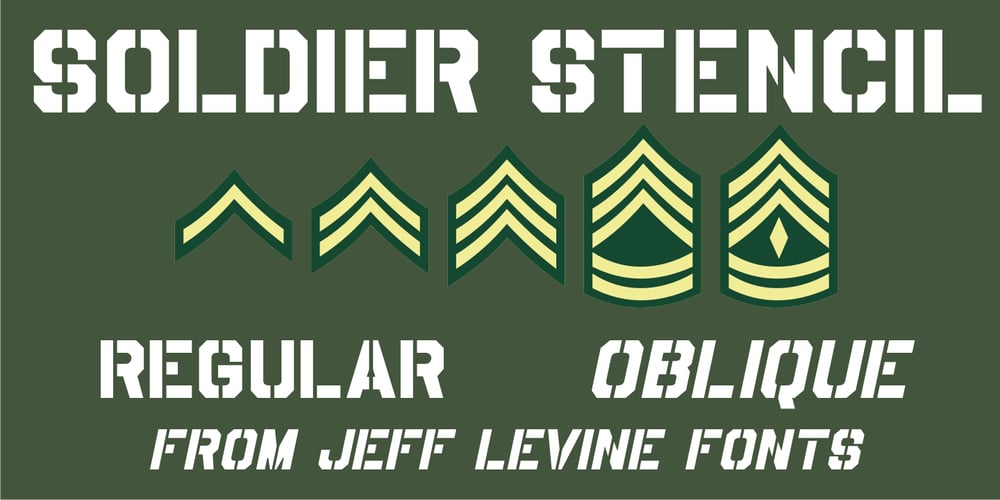
Soldier Stencil JNL
Soldier Stencil JNL font
Soldier Stencil JNL Font Family was designed by Jeff Levine and published by Jeff Levine. Soldier Stencil JNL contains 2 styles and family package options. Soldier Stencil JNL is a re-working of a vintage example of a sign painter’s “block” or “chamfer” font design into stencil form. The result is Soldier Stencil JNL, which is available in both regular and oblique versions.